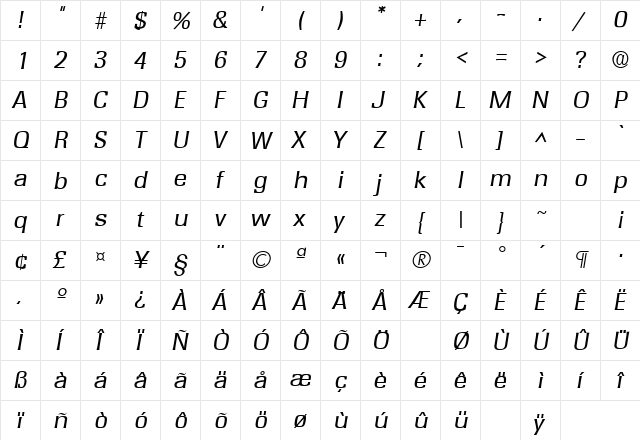
Rochester Italic
Design Context for Rochester Typeface
Rochester takes a measured approach to typography — its balanced proportions and neutral character make it a reliable workhorse for both digital and print work. The slanted form adds forward momentum and visual energy.
Pro Tip: Try Rochester for annotation and caption copy alongside an upright companion — the contrast in angle creates a dynamic but ordered typographic system.